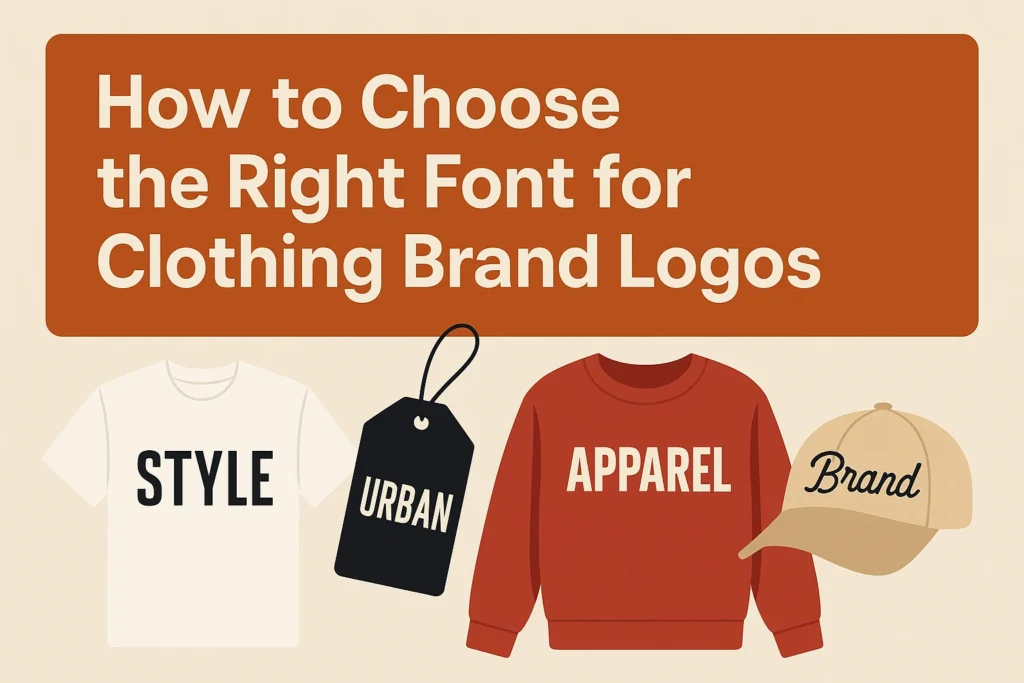
A clothing brand’s logo isn’t just a symbol — it’s the soul of the brand.
Whether you’re building a streetwear label, minimalist apparel line, punk merchandise brand, or high-end fashion identity, choosing the right font determines how people perceive your style.
Here’s a complete guide — with recommended fonts from Ronny Studio — to help you select the perfect typography for your clothing brand.
1. Understand Your Brand Personality
Before choosing a font, ask:
-
Is your brand bold or minimalist?
-
Street-inspired or high-fashion?
-
Rebellious or elegant?
-
Targeting youth or premium market?
Different fonts communicate different personalities:
✔ Street/Punk Brands → Rough, chaotic, expressive fonts
✔ Vintage Brands → Blackletter or retro serif fonts
✔ Modern Minimal Brands → Clean, geometric display fonts
2. Choose a Font That Matches Your Style Category
A. Streetwear & Skate Brands
You need fonts that look bold, rebellious, and full of motion.
Recommended:
👉 Thrashlane – wild & destructive, perfect for skate labels
👉 Block Buster – chunky and powerful street-style logotype
👉 Echoed Vandalism – graffiti-inspired strokes and vandal energy
👉 Step Better – hand-crafted skate-punk personality
These work well on:
-
T-shirt chest logos
-
Hoodie back prints
-
Skate deck branding
-
Stickers
B. Vintage & Retro Clothing Brands
These logos need character, heritage, and timeless shapes.
Recommended:
👉 Devans – gothic vintage with clean structure
👉 More Than Life – blackletter hybrid with strong emotional impact
👉 Matgard – bold, classic, perfect for badges and label patches
Use these for:
-
Retro apparel
-
Tattoo-inspired fashion
-
Barbershop merch
-
Leather patch designs
C. Clean & Modern Clothing Brands
If your brand is minimalist, futuristic, or high-fashion:
Recommended:
👉 Dawnee – sharp, modern, editorial look
👉 Neckless Starways – geometric grunge-modern hybrid
👉 Overals – heavy yet clean display type
Great for:
-
Luxury streetwear
-
Editorial-style fashion
-
Monogram logos
-
Simple premium branding
3. Ensure the Font Is Versatile
A clothing brand logo must work on many media:
-
Embroidery
-
Screen printing
-
Heat press
-
Tags & labels
-
Packaging
-
Social media icons
Choose a font with shapes that stay readable even when scaled small.
Tip: Avoid overly thin strokes if you plan embroidery.
4. Test the Logo on Real Merchandise
Always test your font on mockups:
-
T-shirt mockups
-
Hoodie graphics
-
Packaging box
-
Clothing tags
-
Hat embroidery
This shows how your logo behaves in the real world.
Conclusion
Your clothing brand’s identity starts with typography.
Choosing the right font will make your label look professional, consistent, and memorable.